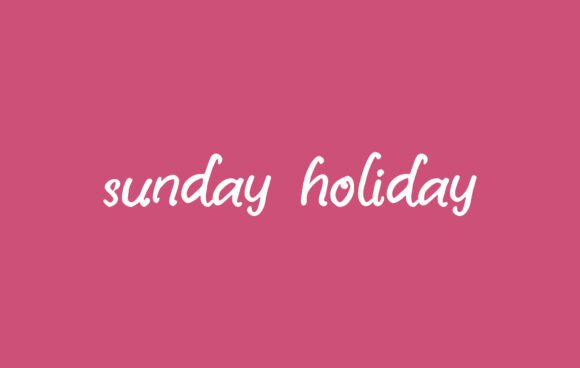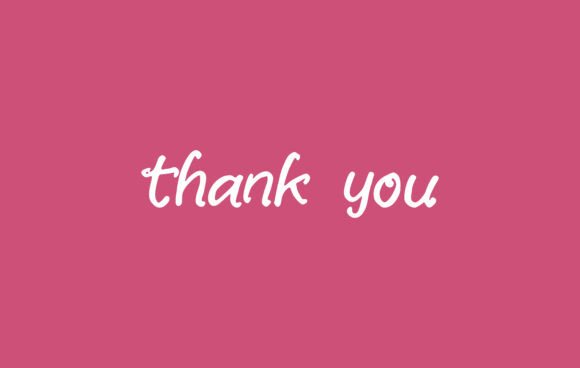
The Perfect Script: Unlocking Your Creative Potential with Blessoria Font
There’s nothing quite like the rush of inspiration that comes with a blank page and a pen in hand. The possibilities are endless, and the excitement is palpable. You’re brainstorming ideas, jotting down notes, and envisioning the perfect design. But, have you ever found that the perfect font can make all the difference in bringing your creative vision to life?
That’s where the Blessoria Font comes in – a beautiful, authentic handwritten font that adds a touch of romance to any design. Whether you’re working on a magazine headline, social media post, or wedding invitation, this versatile font is sure to elevate your creative ideas to new heights. For designers, the Blessoria Font is a valuable tool, offering a level of legibility and visual appeal that’s hard to find in other fonts. With its perfect blend of elegance and playfulness, it’s no wonder this font is becoming a favorite among creatives.
Blessoria Font Key Features
- Font Family: Blessoria is a beautiful script font designed to evoke a sense of elegance and sophistication.
- Unique Characteristics: Blessoria features intricate details, flowing connections, and a touch of whimsy, making it perfect for creative projects, such as invitations, posters, and social media graphics.
- Font Weight and Style: Blessoria is available in regular and bold weights, offering flexibility for designers to create visually appealing and balanced compositions.
Blessoria Font Review
I recently had the chance to work with the Blessoria Font, and I have to say, it’s a unique and captivating choice. ✨ The font’s intricate details and ornate design elements make it perfect for projects that require a touch of elegance and sophistication.
Here are some of the things that worked well for me:
- ✨ Beautifully crafted details: The Blessoria Font is full of intricate patterns and ornate elements that make it stand out.
- ✨ Versatile: Despite its ornate design, the font is still relatively easy to read and can be used in a variety of contexts.
- ✨ Unique: The Blessoria Font is not a common sight, which makes it perfect for designers who want to add a touch of originality to their projects.
- ⚠️ Limited font sizes: The Blessoria Font is best used at larger font sizes, as the intricate details can get lost at smaller sizes.
- ⚠️ May not be suitable for all audiences: The font’s ornate design may not be suitable for projects that require a more straightforward or minimalist approach.
Overall, I was impressed with the Blessoria Font, and I think it’s a great choice for designers who want to add a touch of elegance and sophistication to their projects. With its beautiful details and versatile design, it’s a great option for a variety of contexts. Just be aware of its limitations, and you’ll be golden.
Tips for Getting the Most Out of Blessoria Font
Here are some tips to help you get the most out of Blessoria Font:
- Use Blessoria Font for titles and headings to add a touch of elegance and sophistication.
- Pair Blessoria Font with other elegant fonts to create a cohesive and stylish design.
- Experiment with different font sizes and styles to create visual interest and emphasis.
Blessoria Font is suitable for a variety of designs, including:
- Wed